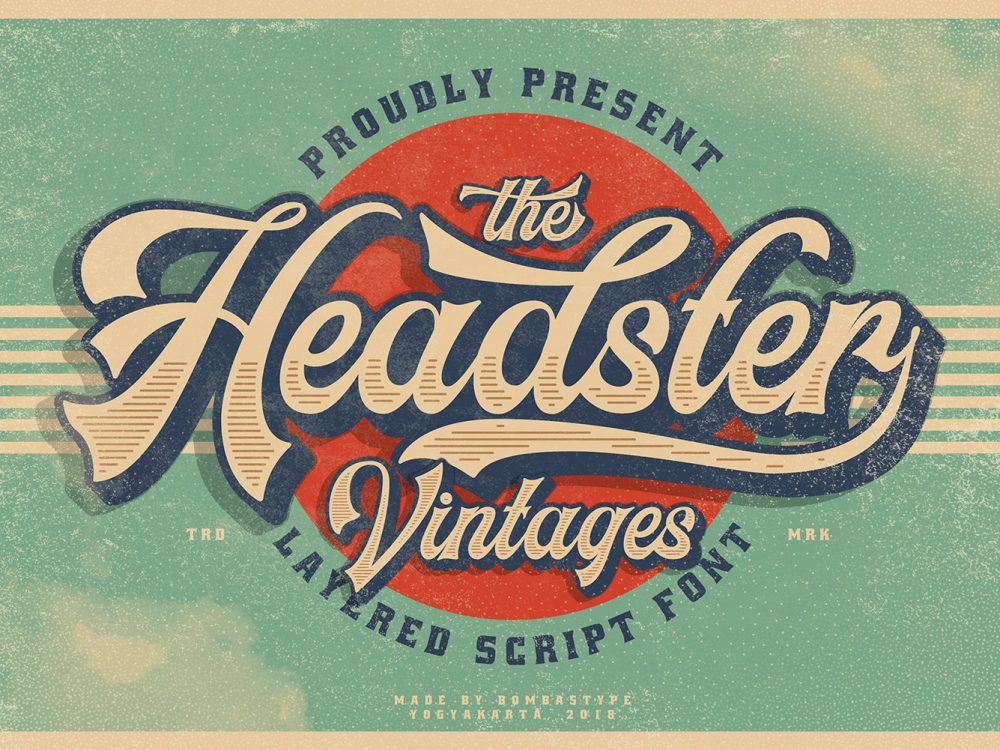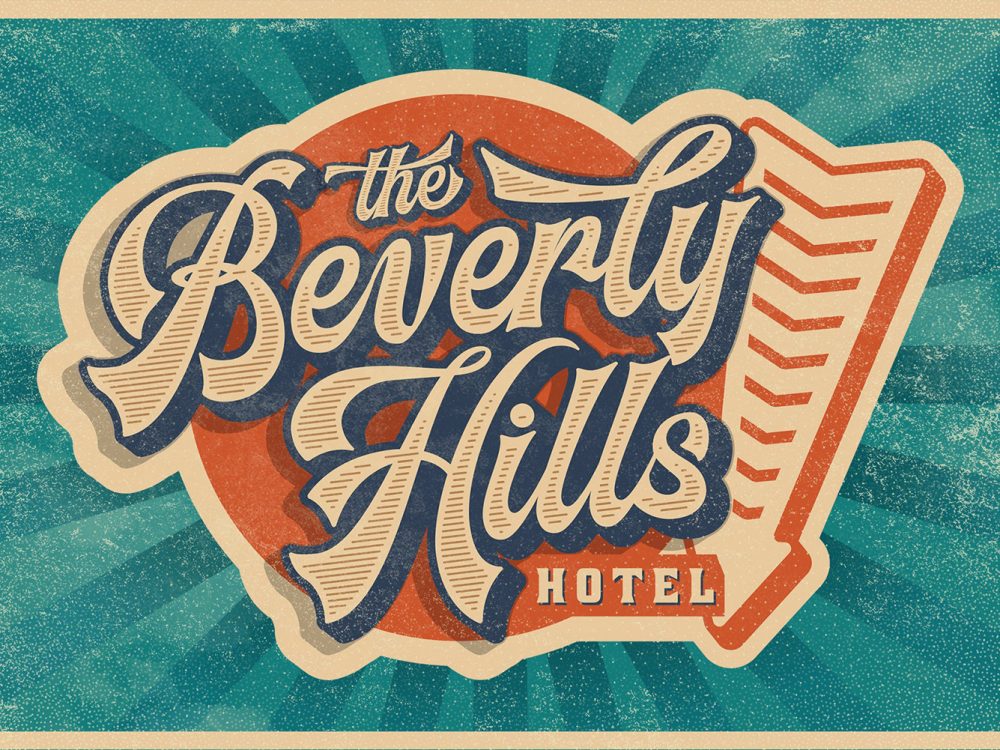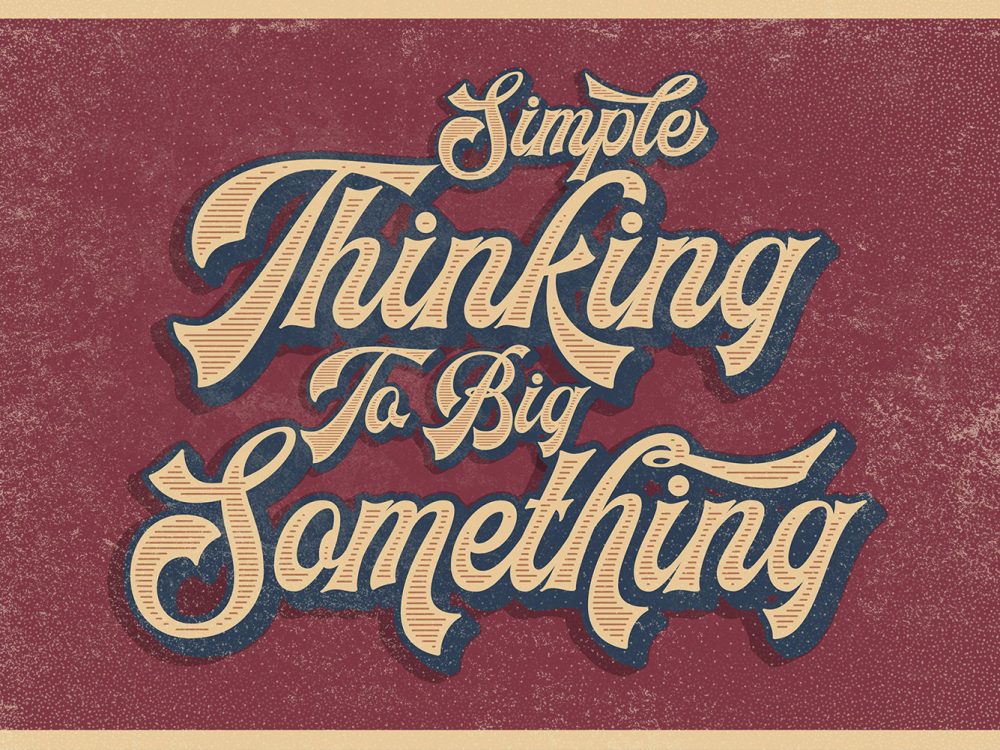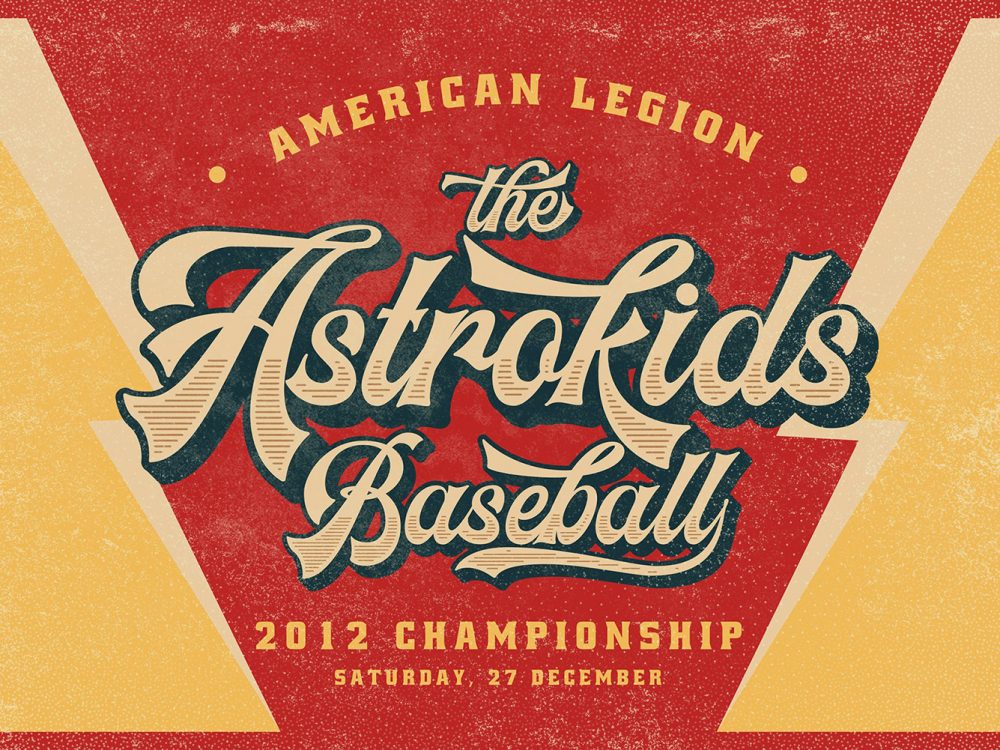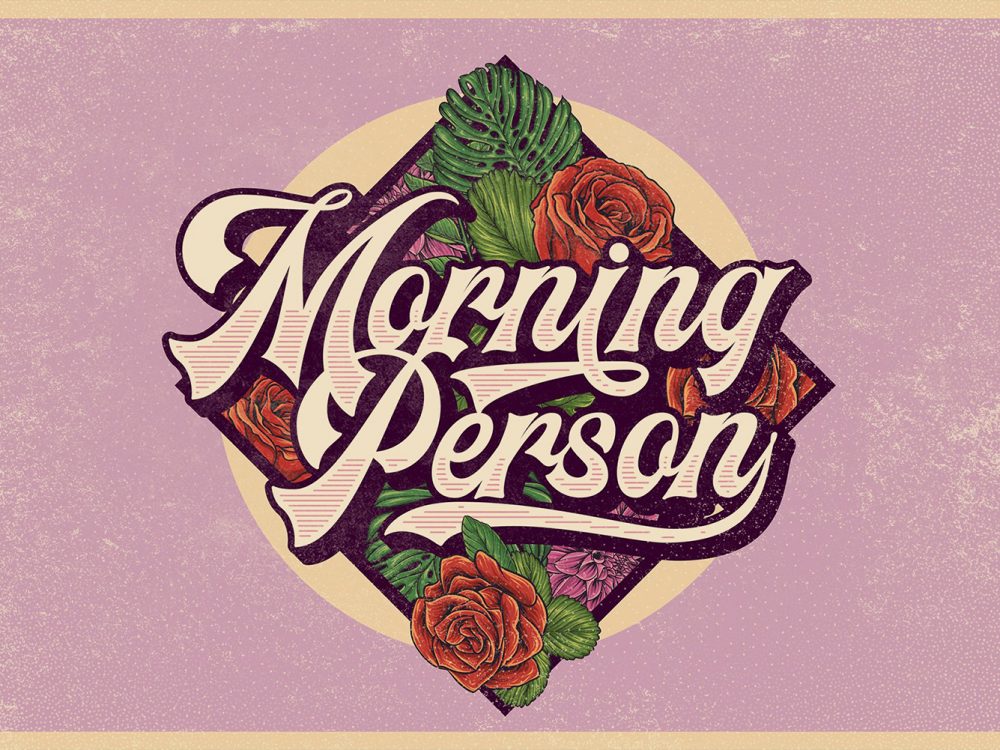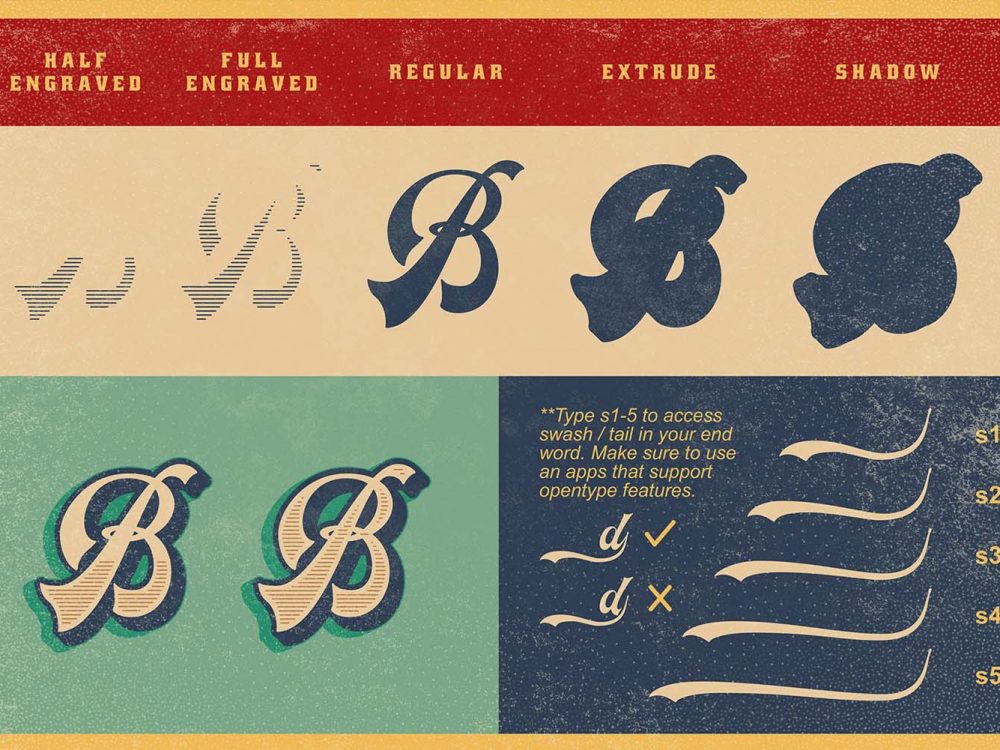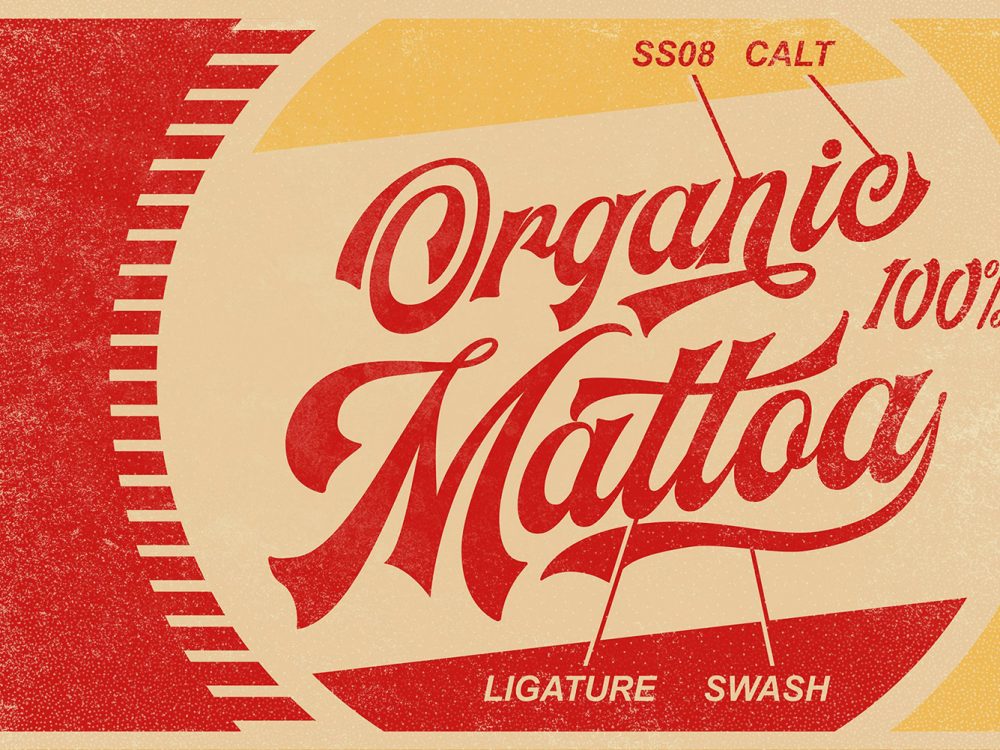
Headster Vintage Free Font Demo
Headster Vintage Free Font Demo is an original interesting font that was created based on the vintage label fonts. This font is perfect for a variety of retro designs. These can be vintage posters, wedding invitations, cards, branding, flyers, prints, and more. If you want to use them for commercial work please buy the full version.